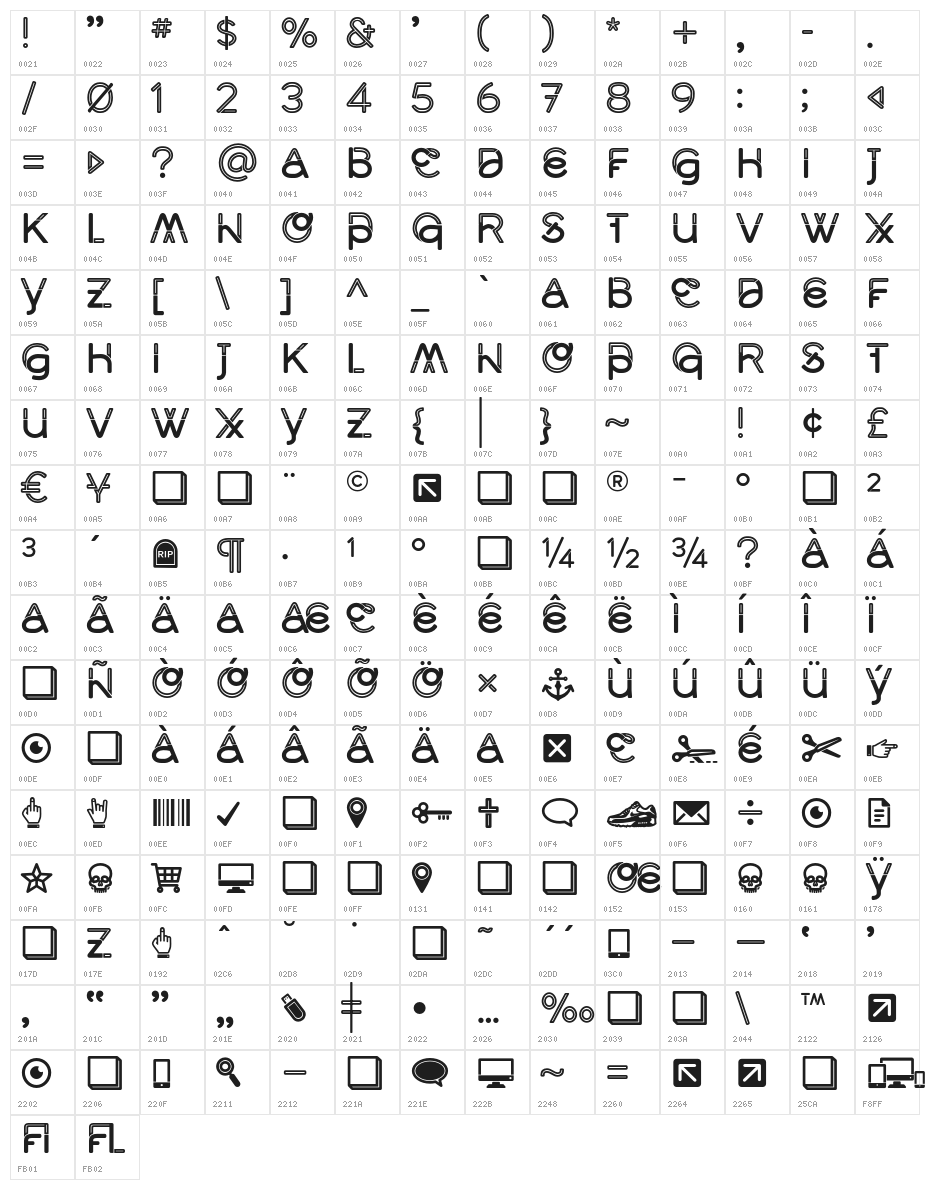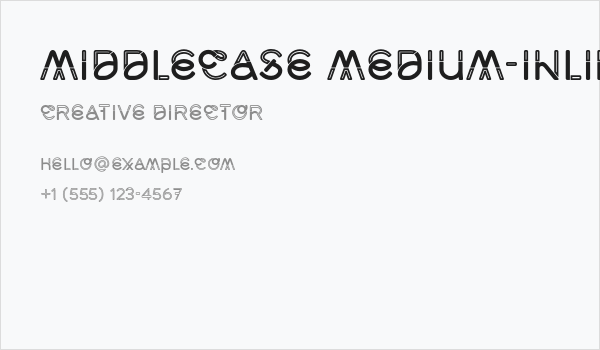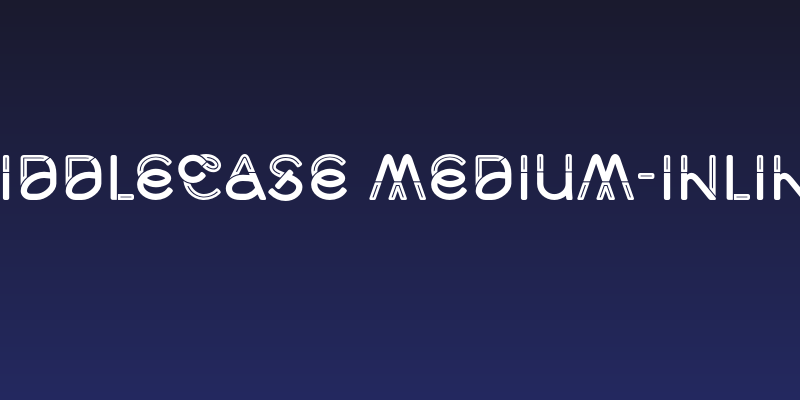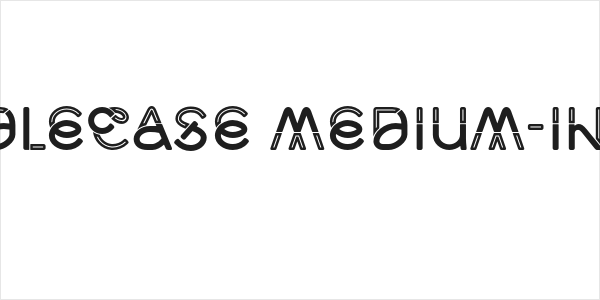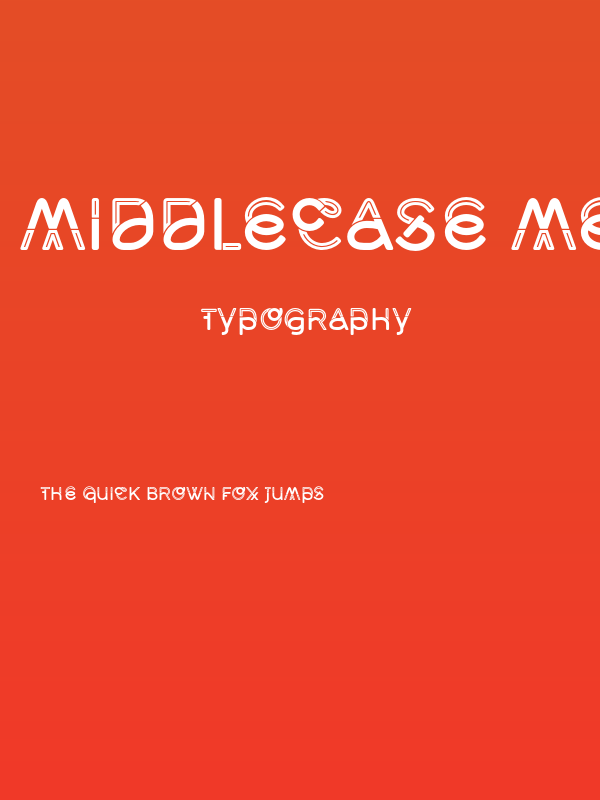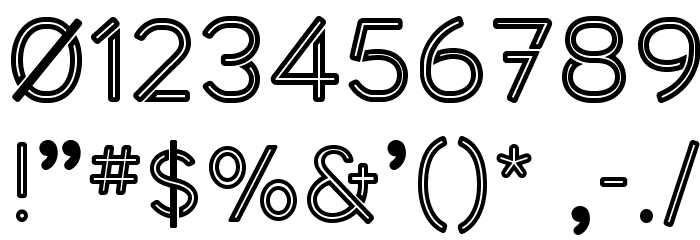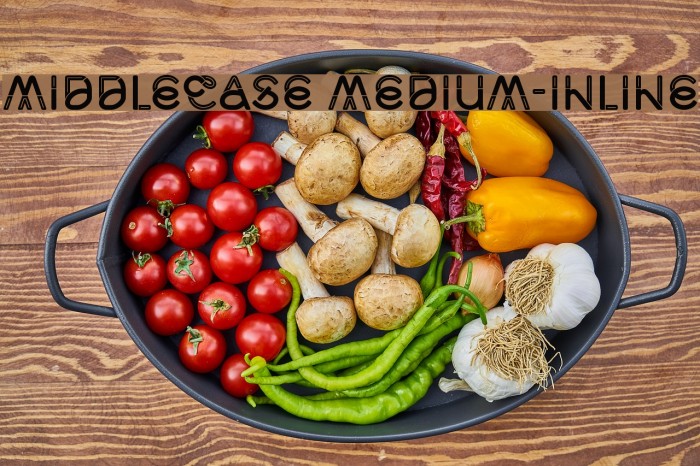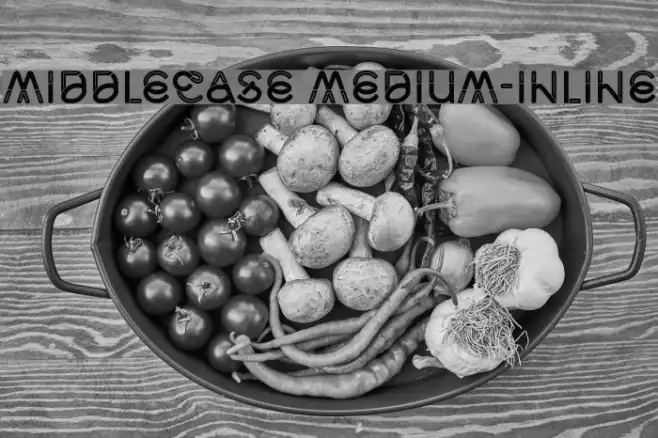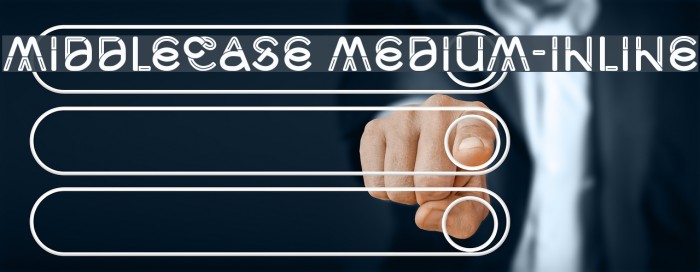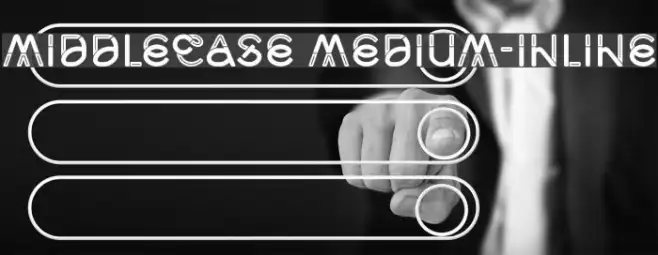
Middlecase Medium-Inline Font
Middlecase Medium-Inline Description
This font features a unique inline design that combines bold, geometric shapes with a modern twist. The characters are constructed with a double-line effect, creating a sense of depth and dimension. The uppercase and lowercase letters maintain a consistent style, with rounded edges and a playful, yet structured appearance. Numbers and special characters follow the same design principles, ensuring a cohesive look across all elements. The font's distinct style makes it ideal for eye-catching designs and creative projects.